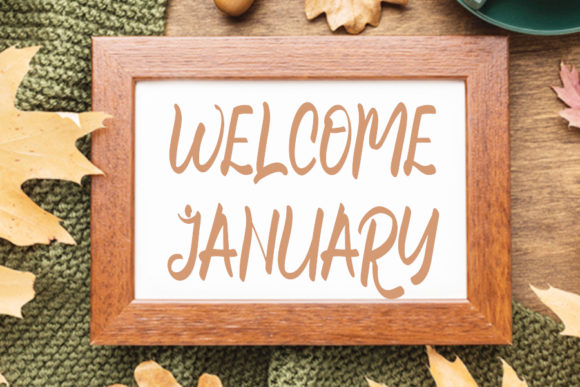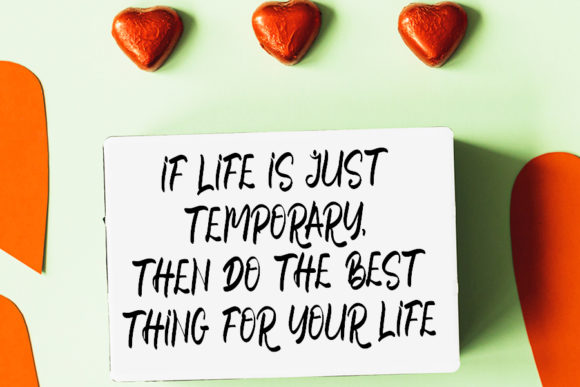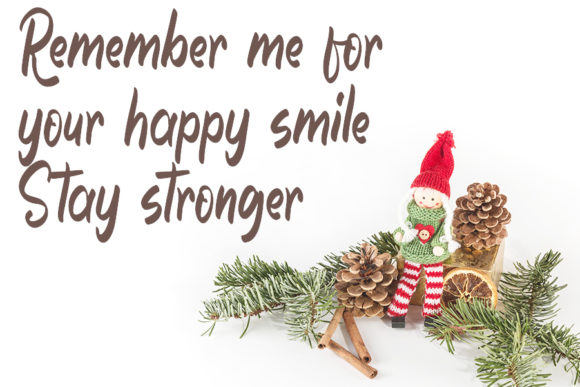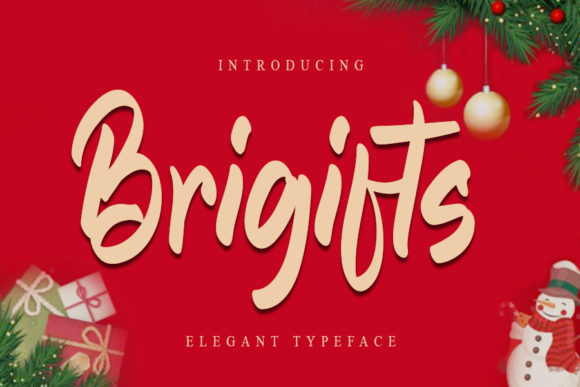
Introducing Brigifts Font: The Ultimate Cheerful Script Font for Designers and Crafters
Are you a designer or crafter looking for a font that can add a touch of personality and whimsy to your projects? Look no further than Brigifts Font! This cheerful script font is simple, easy to use, and versatile enough to be used for a wide range of design and crafting needs. In this article, we’ll take a closer look at Brigifts Font, its features, and how it can elevate your designs and crafts.
What is Brigifts Font?
Brigifts Font is a beautiful, hand-crafted script font that is designed to bring a smile to your face. Its cheerful and playful vibe makes it perfect for a variety of projects, from clothing design and apparel to YouTube designs, Facebook banners, logo designs, and other festive crafts. With its simple and clean lines, Brigifts Font is easy to read and use, making it a great choice for designers and crafters of all skill levels.
Key Features of Brigifts Font
- Cheerful and Playful Design: Brigifts Font has a unique and cheerful design that is sure to add a touch of personality to your projects.
- Simple and Easy to Use: This font is clean and simple, making it easy to use for a wide range of design and crafting needs.
- Versatile: Brigifts Font is suitable for a variety of projects, including clothing design, apparel, t-shirts, YouTube designs, Facebook banners, logo designs, and more.
- High-Quality: This font is designed to be high-quality and crisp, ensuring that it looks great in any project.
Uses for Brigifts Font
Brigifts Font is a versatile font that can be used for a wide range of design and crafting needs. Here are some ideas to get you started:
- Clothing Design: Use Brigifts Font to create custom t-shirts, hoodies, and other clothing items that are sure to stand out.
- Apparel: Add a touch of personality to your apparel designs with Brigifts Font.
- YouTube Designs: Use Brigifts Font to create eye-catching YouTube banners, intros, and outros.
- Facebook Banners: Create custom Facebook banners that showcase your personality or brand with Brigifts Font.
- Logo Designs: Use Brigifts Font to create unique and memorable logo designs for your business or brand.
- Festive Crafts: Add a touch of whimsy to your festive crafts, such as holiday cards, gift tags, and more, with Brigifts Font.
Tips for Using Brigifts Font
Here are a few tips for using Brigifts Font in your designs and crafts:
- Experiment with Colors: Brigifts Font looks great in a variety of colors, so don’t be afraid to experiment and find the perfect color scheme for your project.
- Play with Pairings: Try pairing Brigifts Font with other fonts or graphics to create a unique and eye-catching design.
- Keep it Simple: Don’t overcomplicate your design – Brigifts Font is simple and easy to use, so keep your design clean and simple to let the font shine.
Brigifts Font is a cheerful script font that is simple, easy to use, and versatile enough to be used for a wide range of design and crafting needs. With its unique and playful design, Brigifts Font is sure to add a touch of personality and whimsy to your projects. Whether you’re a designer or crafter, Brigifts Font is a great choice for anyone looking to create high-quality, eye-catching designs and crafts.